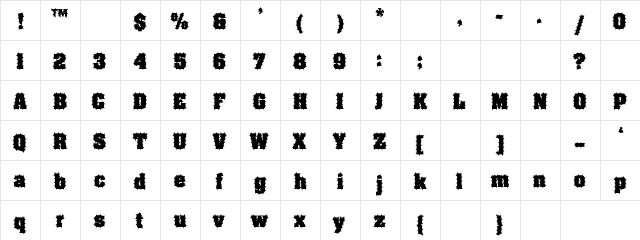
Suden Death Regular
Design Context for Suden Death Typeface
Suden Death leans into the macabre with letterforms designed to disturb and intrigue in equal measure.
Perfect for anything that needs to unsettle — game titles, horror branding, and macabre invitations.
Font Pairing: Pair with a clean neutral sans-serif for body copy to let Suden Death's character lead without overwhelming the composition.
Pro Tip: Use Suden Death at larger display sizes for maximum impact. Consider generous tracking to let the disturbing character of each letterform breathe.